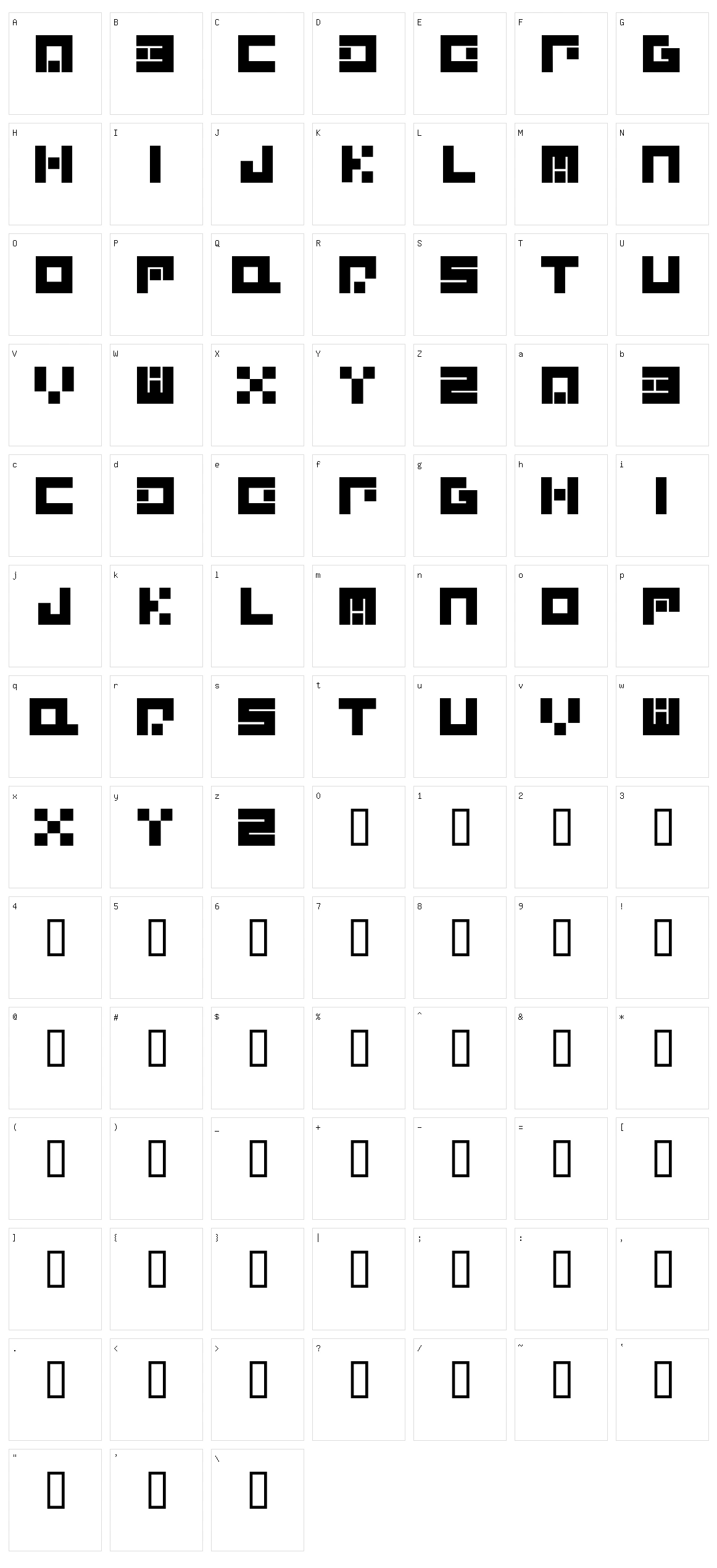
The free font Alpha Quantum Glyphset is carefully designed by Alpha Quantum, showcasing a thoughtful balance of creativity and usability and falls under the Square font style. When you download the ZIP file, it contains only 2.74 KB of font files, making it lightweight and quick to download. Please review the license details below to understand permitted usage and distribution rights. If license information is not available, we recommend using this font for personal projects only or contacting the author directly for commercial usage permissions.